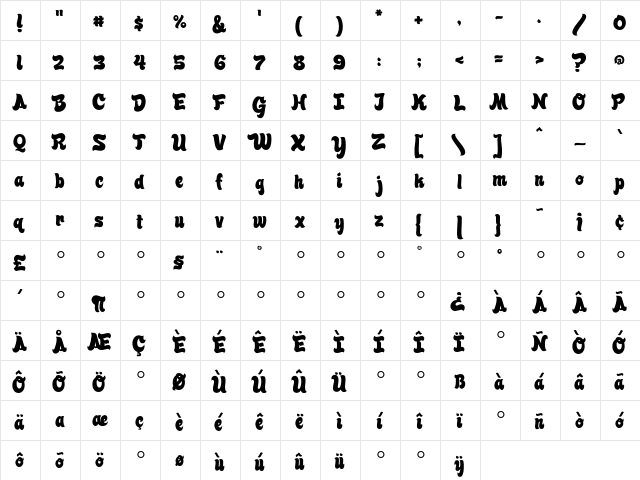
FinkBrush Medium
Design Context for FinkBrush Typeface
FinkBrush flows with the natural rhythm of handwritten lettering, making it ideal for designs that call for warmth and personal expression.
Font Pairing: Combine FinkBrush with a simple geometric sans for maximum contrast — the tension between flowing curves and clean structure is a classic typographic pairing.
Pro Tip: Pair FinkBrush with a clean sans-serif for supporting text. The contrast between fluid script and geometric structure creates an elegant typographic hierarchy.